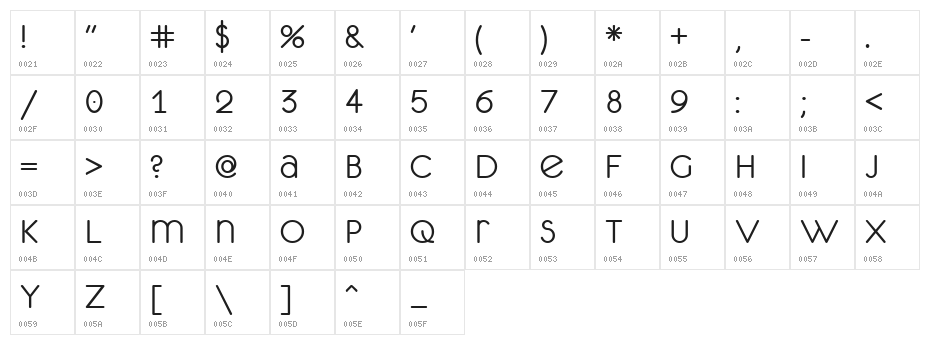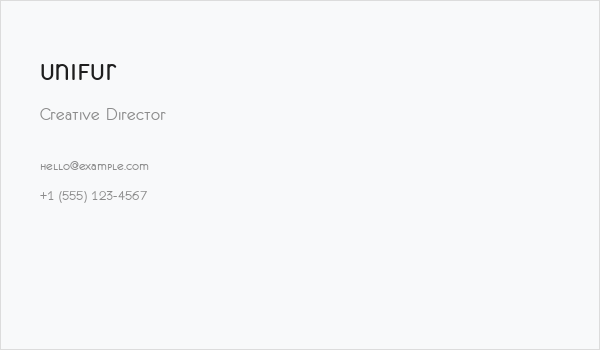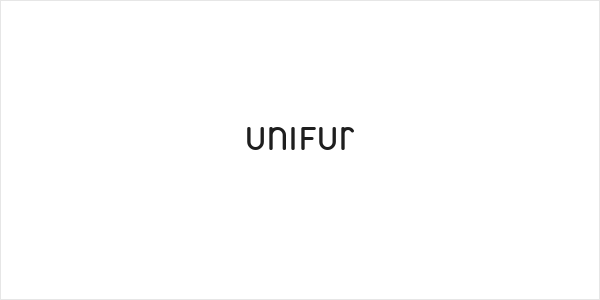
unifur Font
unifur Description
This font features a clean and modern design with rounded edges and uniform stroke widths, creating a friendly and approachable appearance. The characters are well-balanced, with a consistent height and width that ensure readability. The rounded terminals add a touch of softness, making it suitable for both digital and print media. The numerals and special characters maintain the same design ethos, offering a cohesive look across all elements. This font's simplicity and clarity make it versatile for various applications, from branding to user interfaces.
Proposed ProjectsIdeal for branding, user interfaces, children's books, and educational materials.